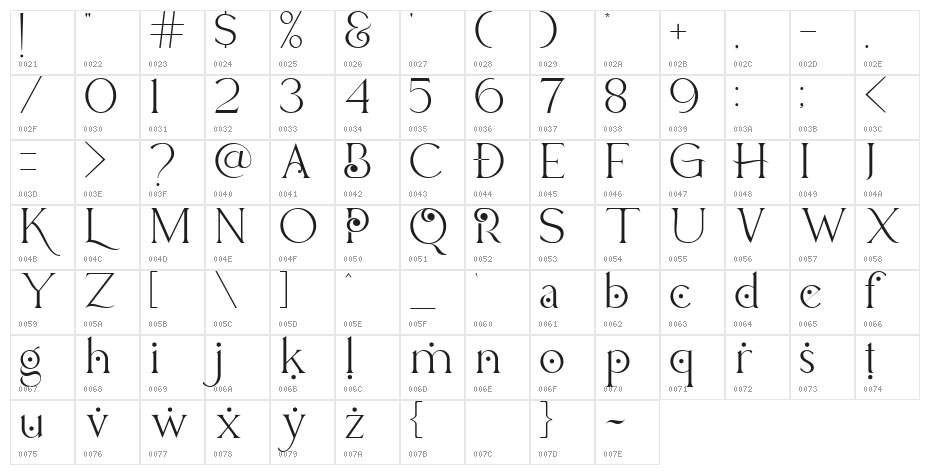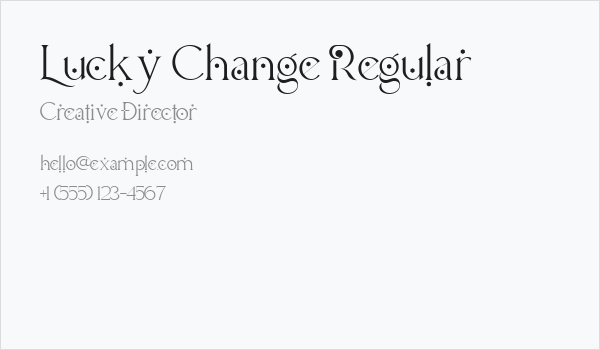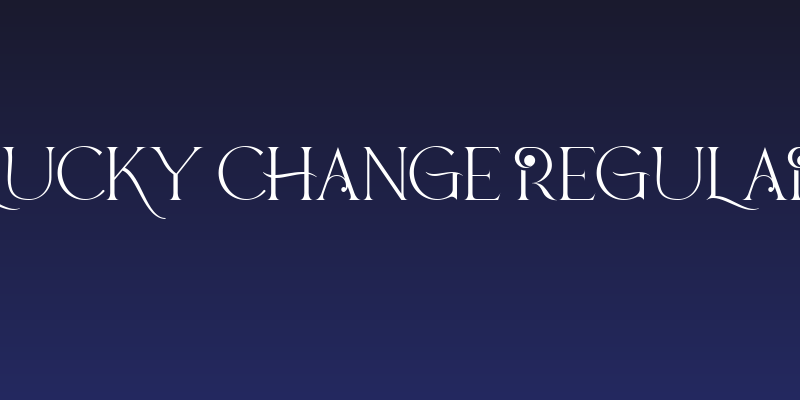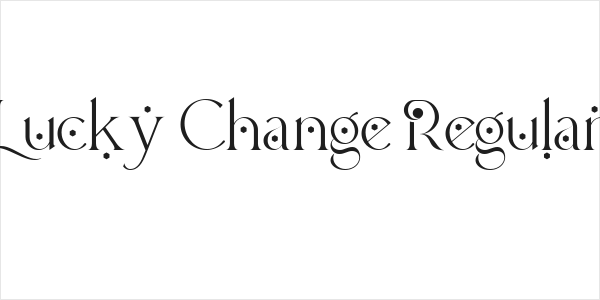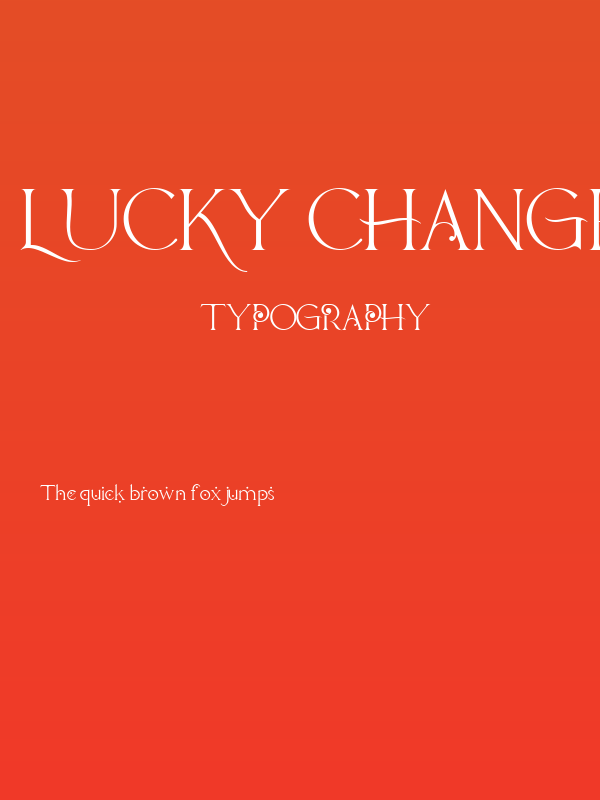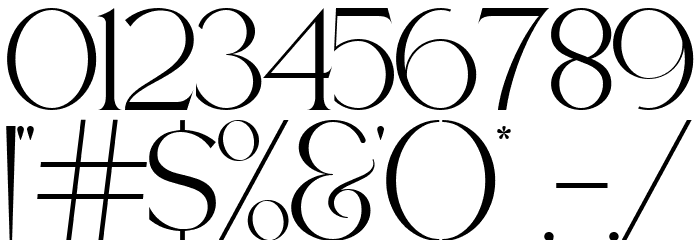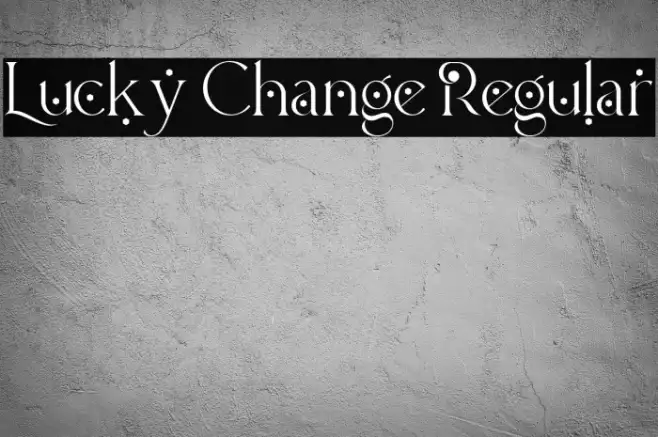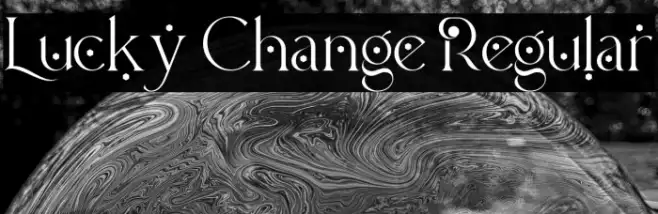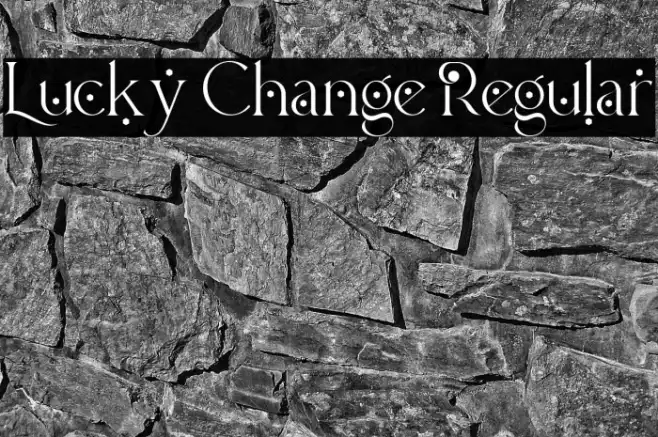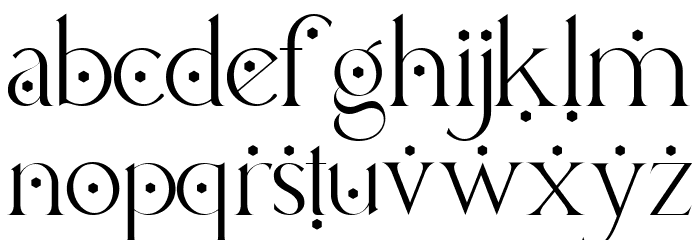
Lucky Change Regular Font
Lucky Change Regular Description
This font features a unique and artistic design with a blend of modern and decorative elements. The uppercase letters are characterized by elegant curves and distinctive flourishes, giving them a sophisticated appearance. The lowercase letters maintain a consistent style, with smooth lines and subtle embellishments that add a touch of elegance. The numerals are clear and stylish, matching the overall aesthetic of the font. Special characters are creatively designed, incorporating the same artistic flair seen throughout the alphabet. This font's combination of modernity and decorative details makes it suitable for a variety of creative projects.